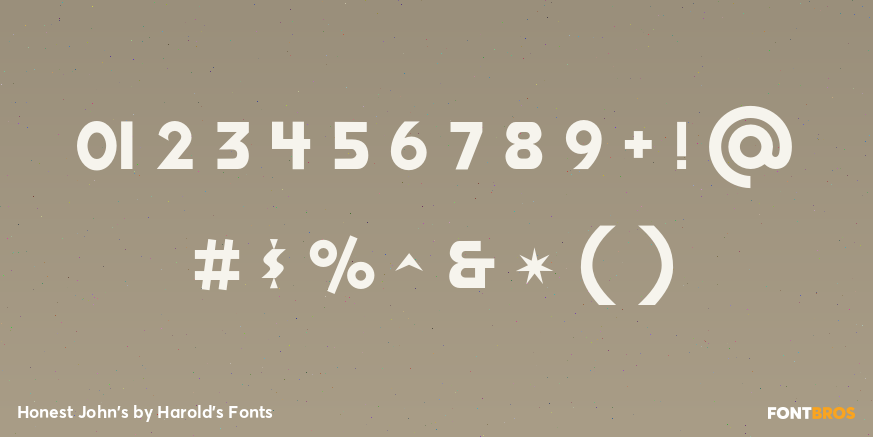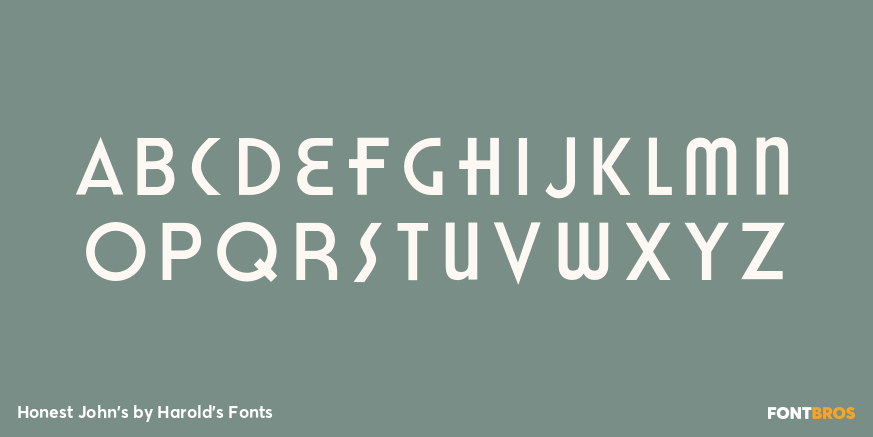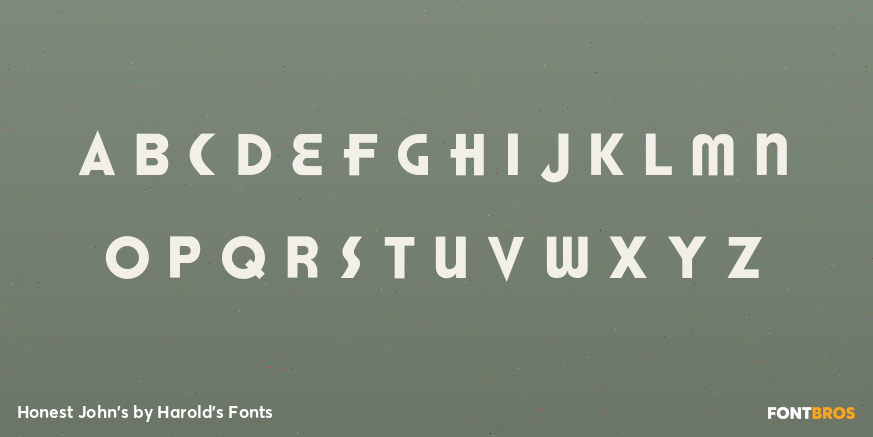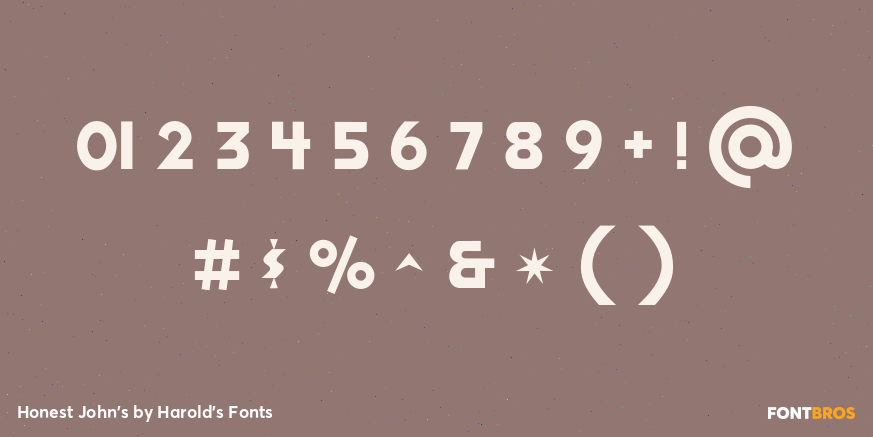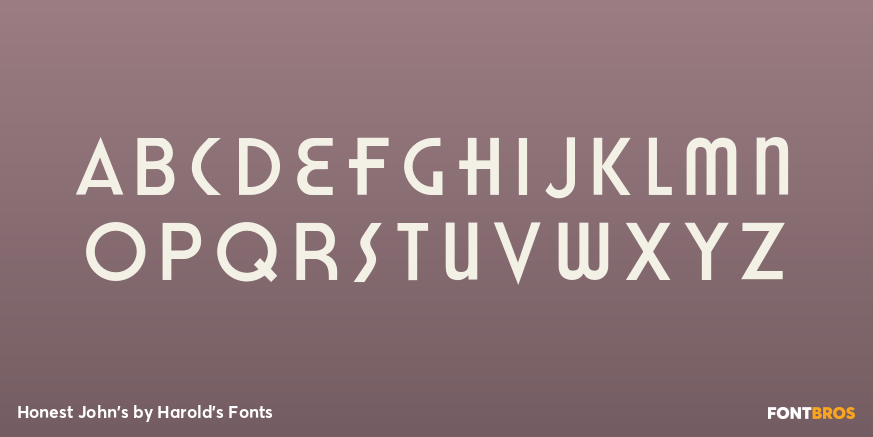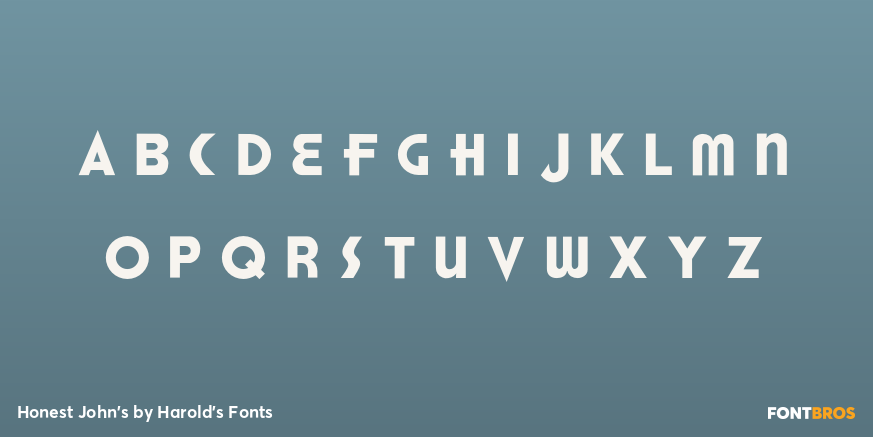
Honest John's
Font Family by Harold's Fonts
The HONEST JOHN’S fonts were inspired by the old logo of the Howard Johnson’s restaurant chain. Like the original, it features BIG caps and small caps. For missing letters, I consulted similar Deco fonts. There’s a solid Regular and outline Shadow version which can be used together or separately.